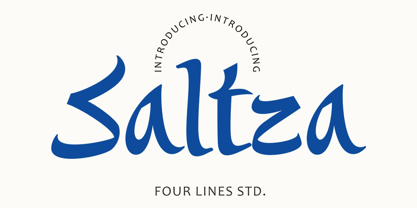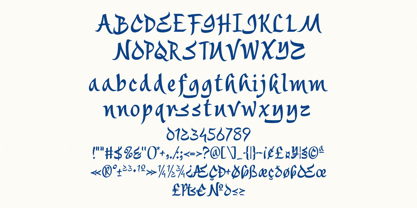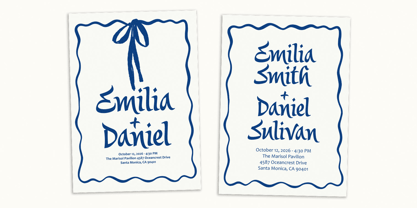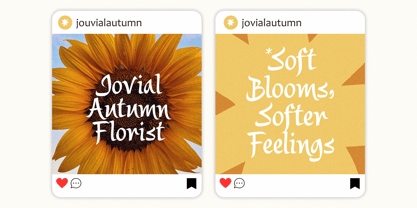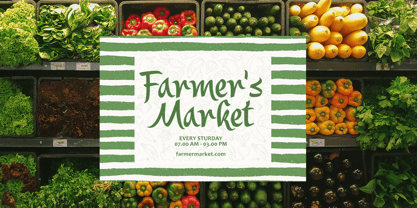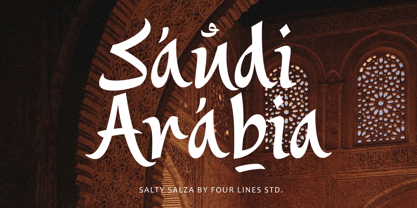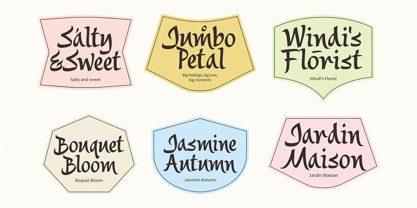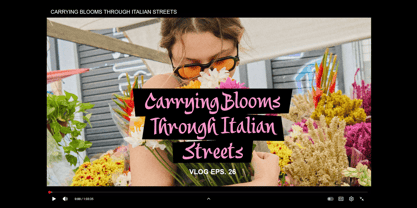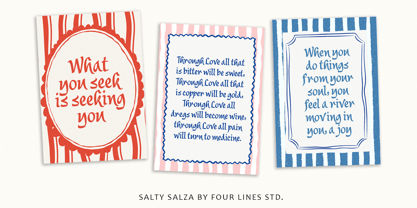
Saltza
La familia tipográfica Saltza fue diseñada por Zain Fahroni y publicada por Four Lines Std. Saltza contiene 1 estilos. Más información sobre esta familia
Saltza is a decorative handcrafted display typeface featuring organic curves, soft terminals, and expressive proportions. Designed to feel warm, friendly, and approachable, it brings a human touch to every letterform. Saltza adds character without being overwhelming, making it perfect for designs that want to feel expressive, welcoming, and visually memorable. This typeface is ideal for display use such as branding, headlines, packaging, posters, editorial highlights, and lifestyle visuals that seek a cheerful and personable tone.